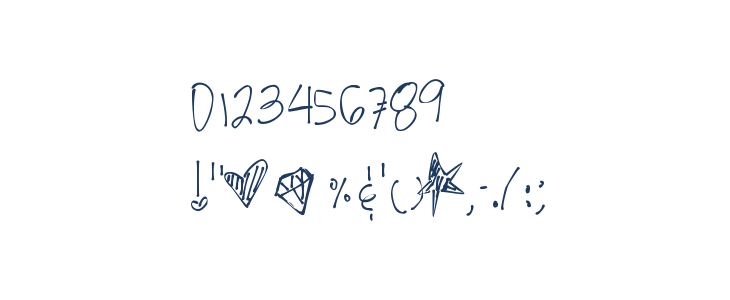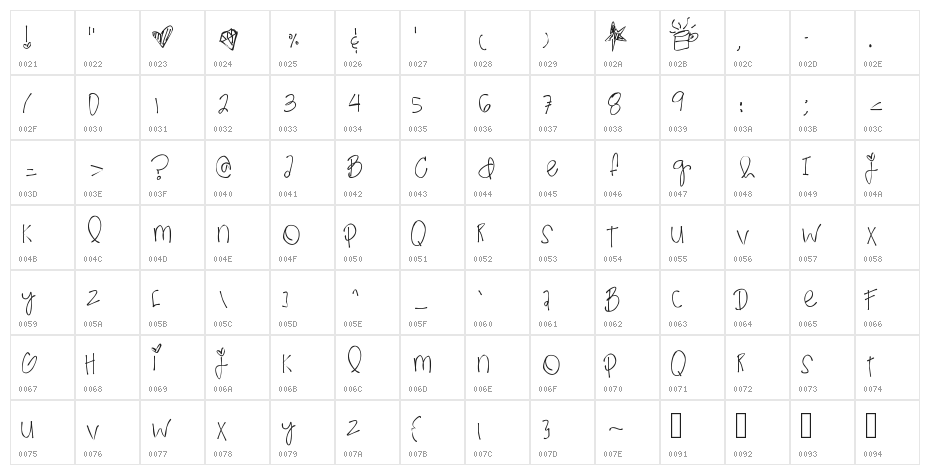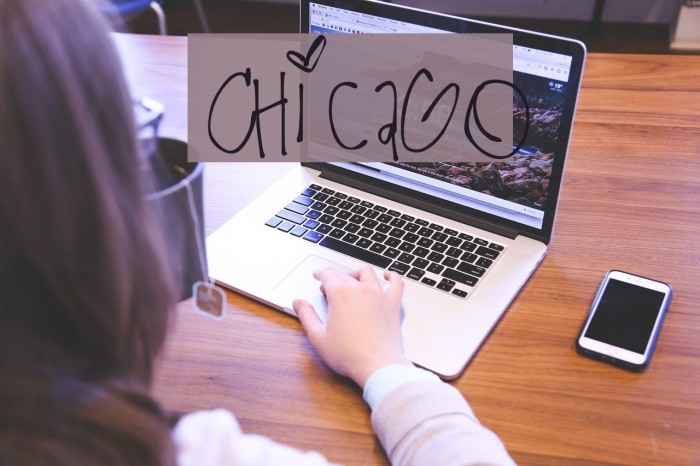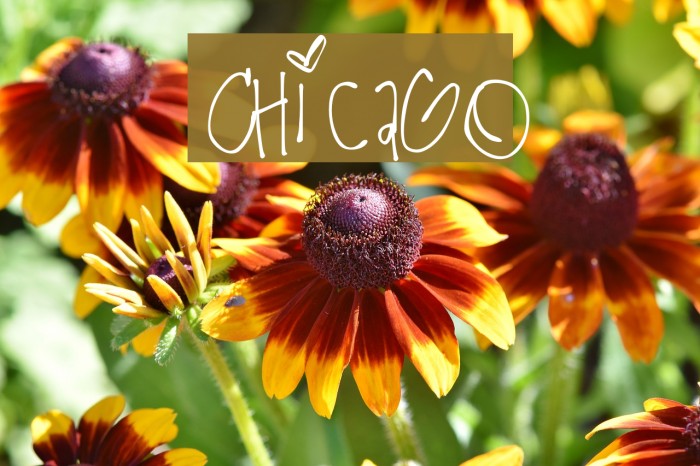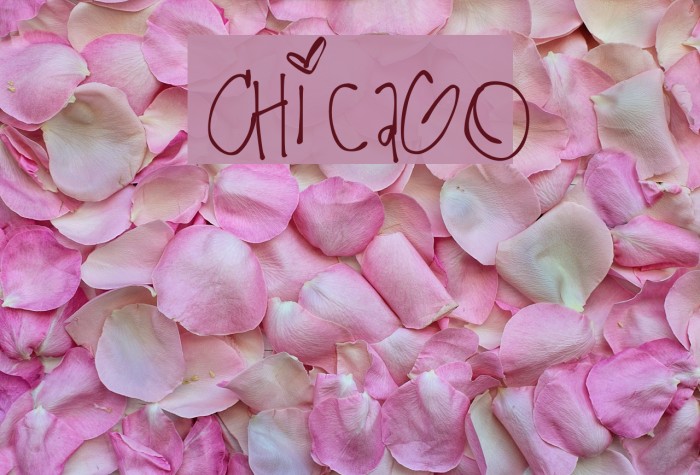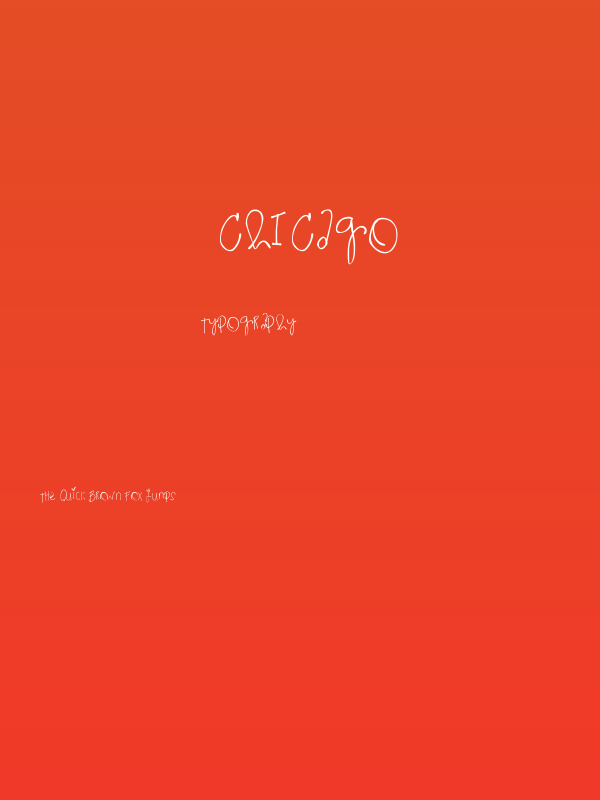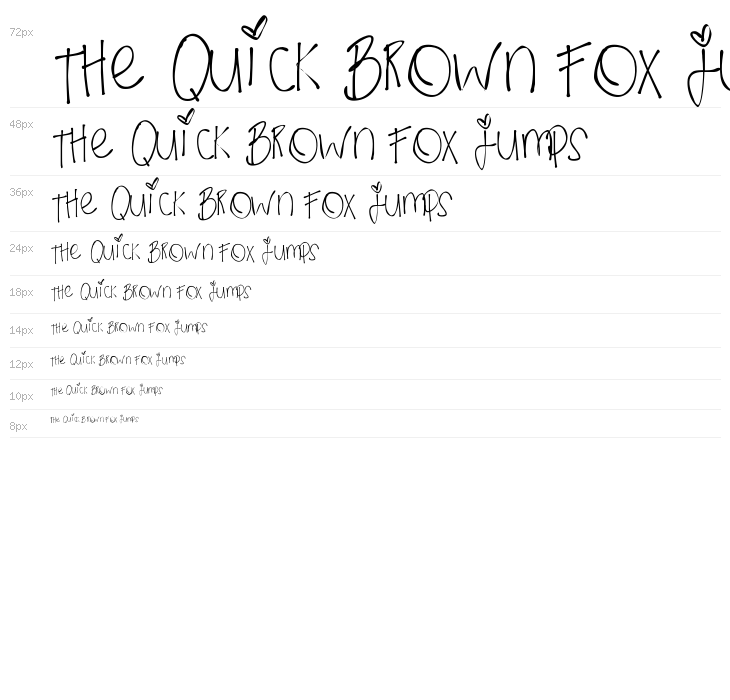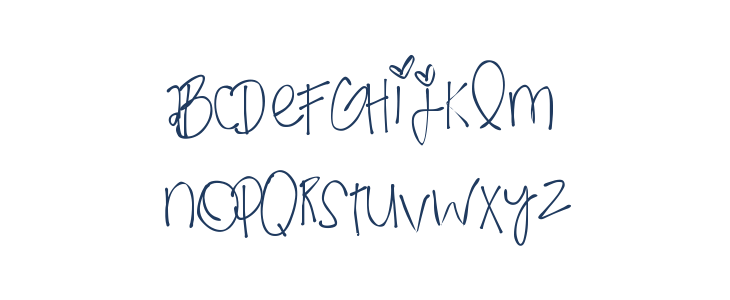
Chicago Font
Chicago Description
This playful and whimsical handwritten font features a unique and charming style with a touch of personality. Each character is crafted with a casual, flowing script that includes delightful embellishments like hearts and stars, adding a sense of fun and creativity. The letters are slightly irregular, giving an authentic handwritten feel, while maintaining legibility. The numbers and special characters are equally playful, incorporating quirky designs that complement the overall aesthetic. This font is perfect for projects that require a personal, friendly touch.
| Proposed Projects | Ideal for greeting cards, children's books, playful branding, and creative invitations. |